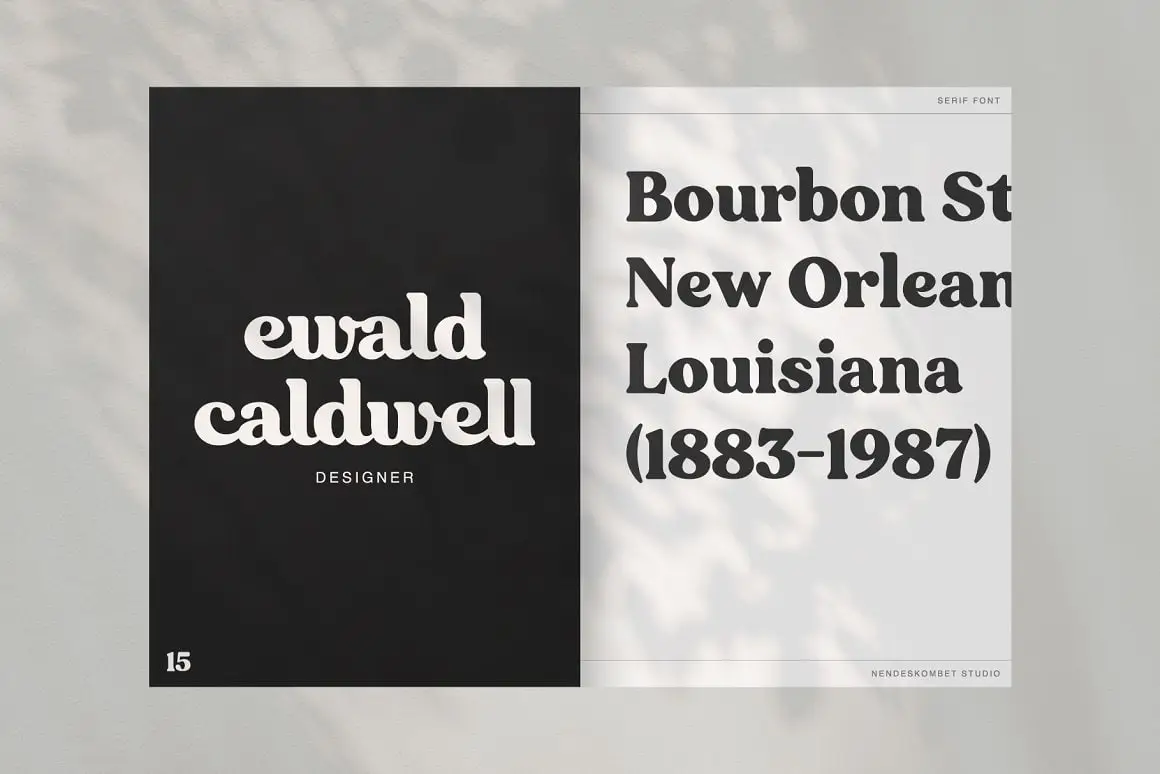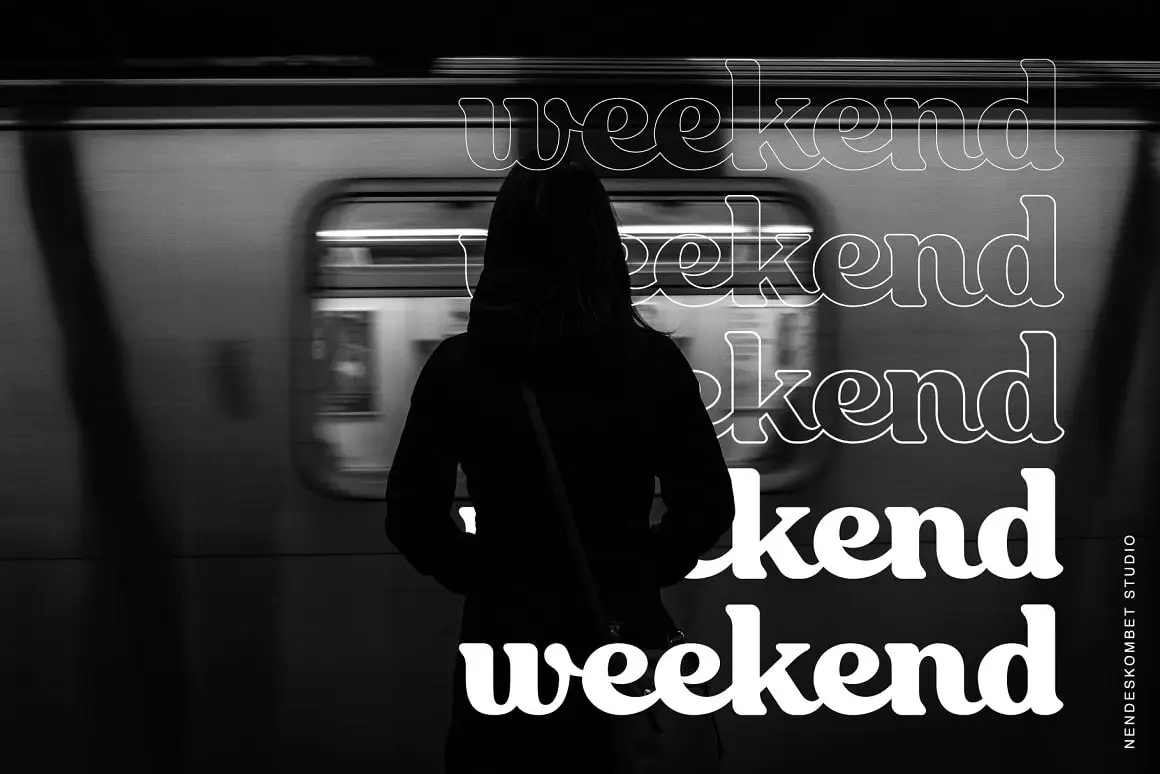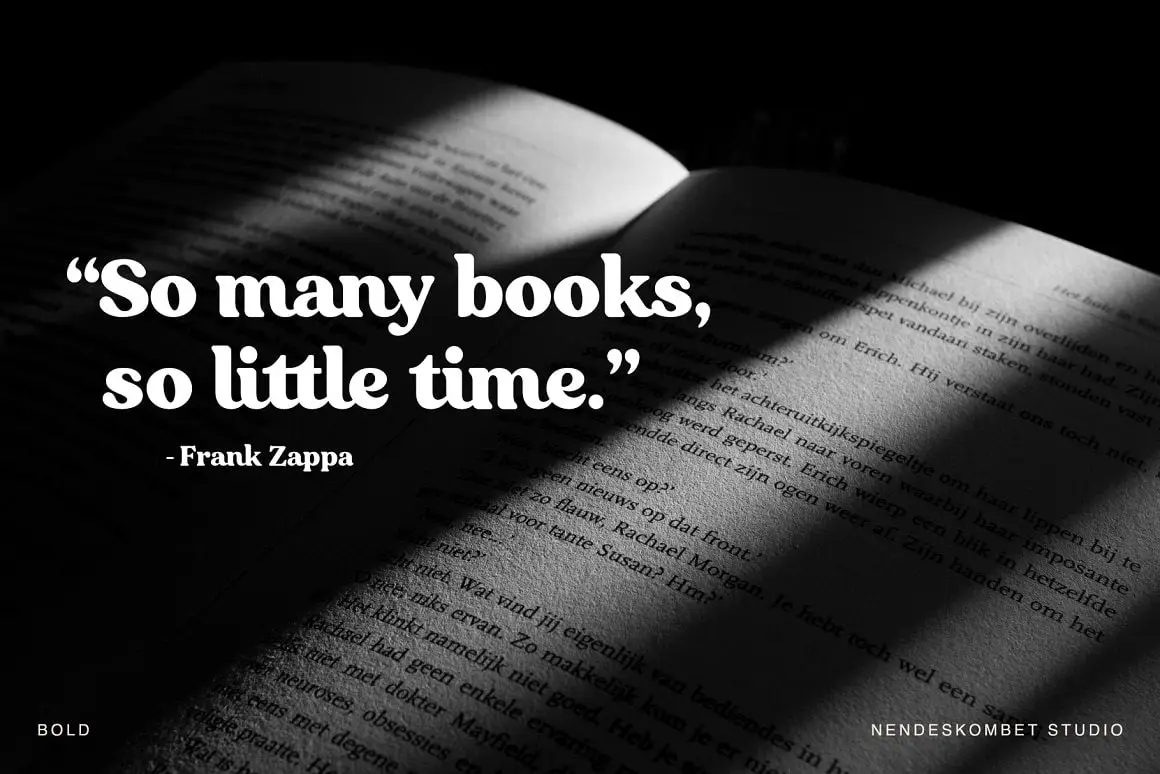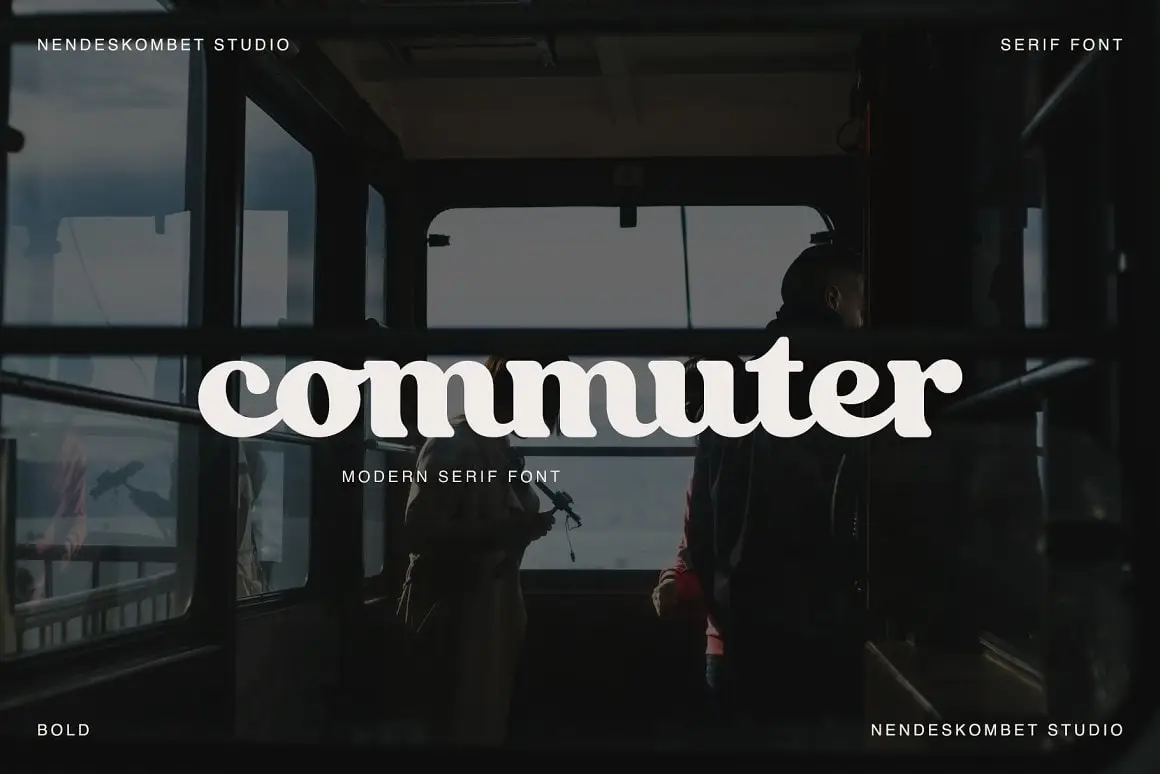
Commuter-Modern Serif Font
The Commuter-Modern Serif Font is a sophisticated typeface designed for versatility and elegance. With its clean lines and contemporary aesthetic, this font is perfect for a variety of applications, including branding, logos, web design, print materials, and user interfaces.
• Stylish serif design that balances modernity with classic appeal
• Multiple weights for flexibility in design projects
• Clear legibility, making it suitable for both digital and print use
• Includes special characters and ligatures for enhanced typography
• Ideal for creating elegant branding materials and promotional content
• Use in editorial designs for a refined look
• Perfect for website headings and body text to maintain readability